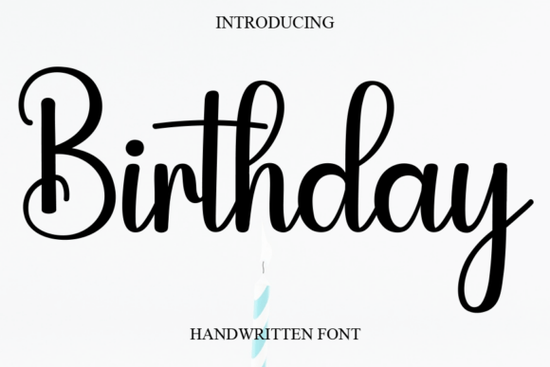
If you create birthday cards, wedding invitations, branding kits, or print-on-demand products, you know how tricky it is to find a handwritten font that feels both fancy and relaxed at the same time. The Birthday Font from Creative Fabrica solves that problem. It’s a sweet, cursive script with a joyful personality that still looks clean enough for professional work.
What Is the Birthday Font Best Used For?
This font thrives on projects that need a touch of warmth without becoming too formal. You can use it on:
- Birthday party invitations and thank-you cards
- Wedding place cards, signage, and envelope addressing
- Logo design for bakeries, florists, or handmade shops
- Social media quote graphics and Pinterest pins
- Fashion lookbooks and product tags
- Mug and t-shirt designs for POD stores
Because the strokes are smooth and the letter connections feel natural, the Birthday Font adds a hand-lettered warmth that works especially well when you want something friendly and romantic, but still readable at small sizes.
How Does This Font Compare to Other Script Fonts?
Many cursive handwritten fonts lean too far into calligraphic drama, or they become illegible when letters touch. The Birthday Font stays on the gentle side. The x-height is generous, the loops are open, and the slant is moderate. That means it works well for longer text snippets, not just one-word titles. If you need a script font for short paragraphs or multi-line invitations, this one holds up better than ultra-swirly alternatives.
While you browse, you’ll notice that Restweek has a similar soft rhythm but slightly taller letterforms. Amorate Signature adds a few more decorative swashes for a formal romantic look. And if you want a script with more bounce and a modern calligraphy feel, Paulina might catch your eye.
How Can You Pair a Script Font with Other Typefaces?
Pairing a cursive font with something simple helps the design feel balanced. Here are three combinations that often work:
- Birthday Font + a clean sans-serif (like Montserrat or Open Sans) – great for modern branding and clean headlines
- Birthday Font + a delicate serif (like Playfair Display or Cormorant) – perfect for wedding suites and elegant stationery
- Birthday Font + a light handwritten print – creates a cozy, journal-style layout for lifestyle blogs or craft fair displays
The key is to let the script font carry the emotional tone while the secondary typeface handles the smaller details. This contrast also makes your designs more accessible and easy to scan.
Is the Birthday Font Suitable for Print-on-Demand?
Yes, and many POD sellers look for exactly this kind of font. It has a universal charm that sells well on mugs, tote bags, baby clothes, and wall art. Since the font is smooth without thin hairlines, it prints cleanly on textured surfaces. You won’t get broken strokes when scaling it up for a canvas or shrinking it down for a hat embroidery mockup.
If you design for multiple POD platforms, a cursive font like this also pairs easily with seasonal themes think Valentine’s Day, Mother’s Day, or Christmas gift products. The joyful romantic tone adapts to different niches without looking out of place.
What Technical Details Do You Get with the Birthday Font?
When you download, you’ll typically receive both OTF and TTF files. OTF often supports more advanced typographic features, while TTF guarantees broad compatibility. For most cutting machines and design apps, either format works fine. Always check that your software supports the flourishes and ligatures if you want the full handwritten feel many modern apps render them automatically.
What Are Some Fonts with a Similar Mood?
If you love the light, breezy personality of the Birthday Font, here are a few more script fonts that share that gentle handwritten charm:
- Delightful Handwriting – soft, playful, and slightly bouncy, ideal for kids’ party themes and cheerful branding
- Restweek – graceful and airy with letterforms that flow beautifully for logos and short quotes
- Amorate Signature – romantic and refined, with lovely connecting swashes
- Paulina – a modern calligraphy script that adds energy and movement to any layout
Each of these makes a strong alternative when you want to slightly shift the mood without losing that hand-crafted, approachable feel.